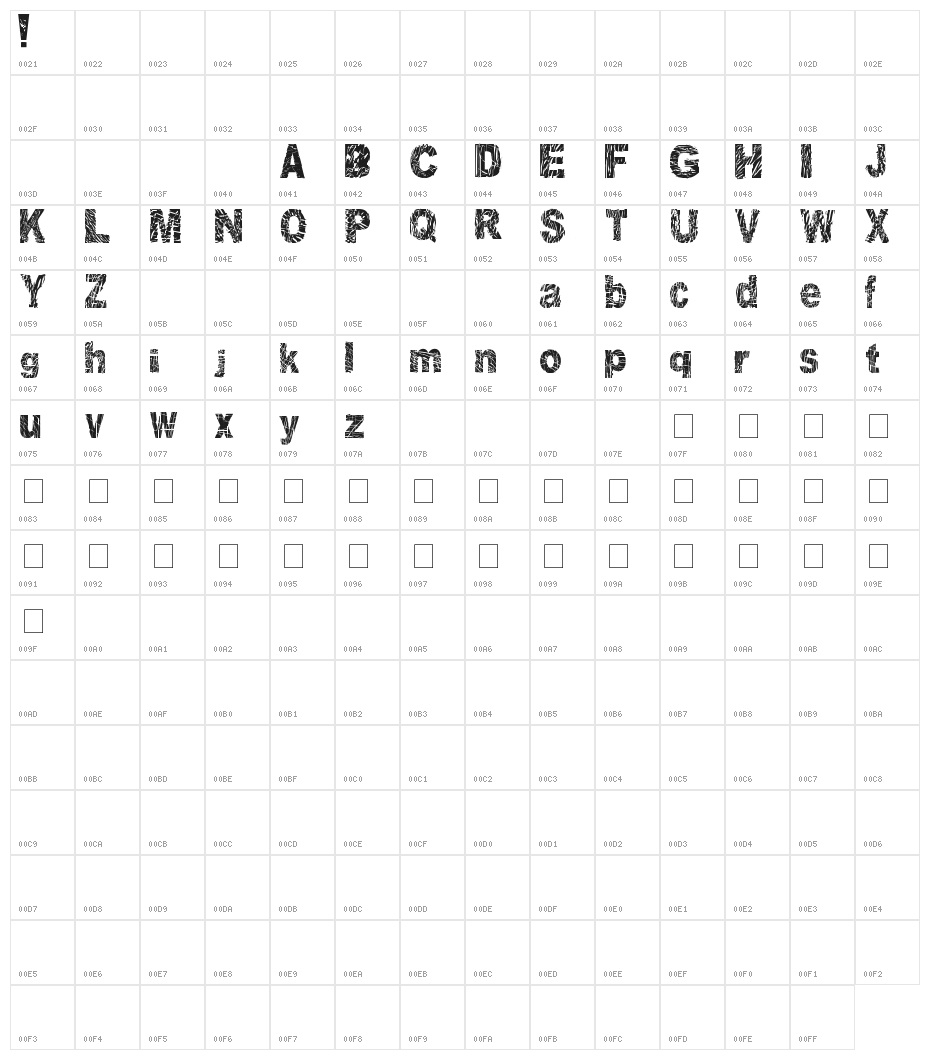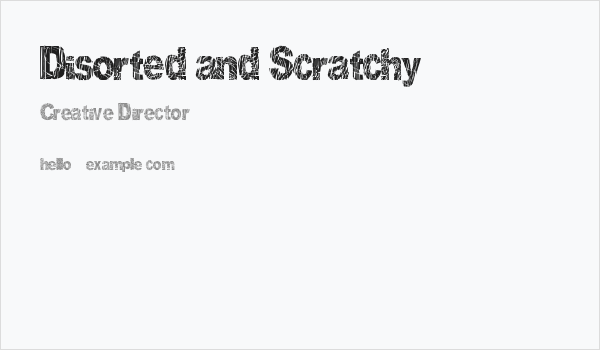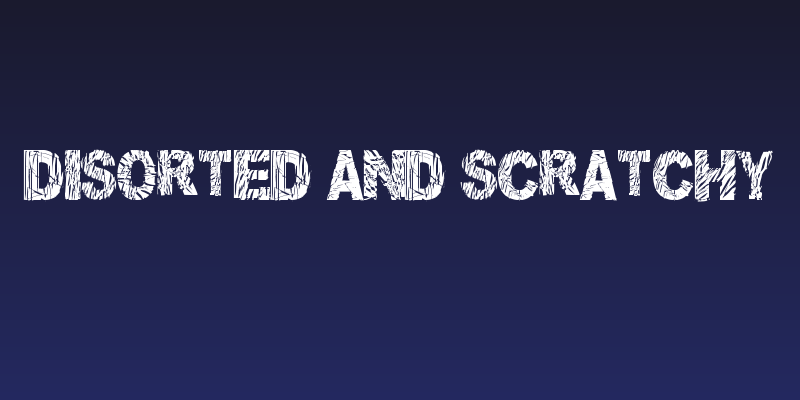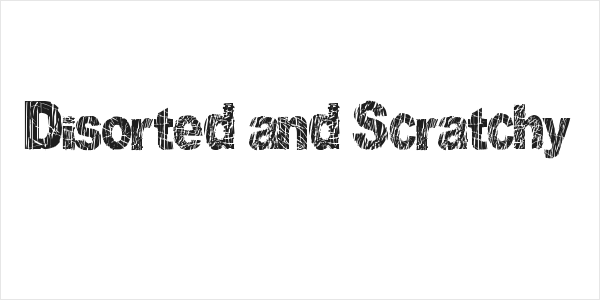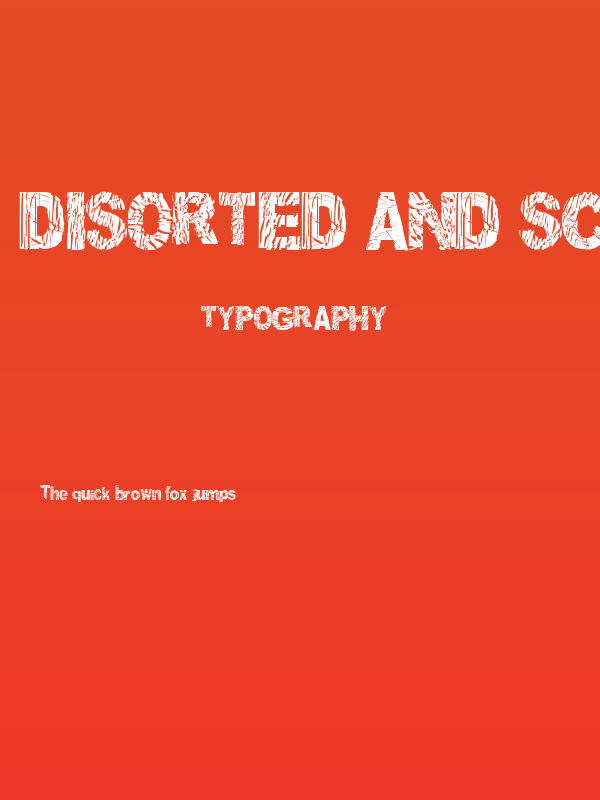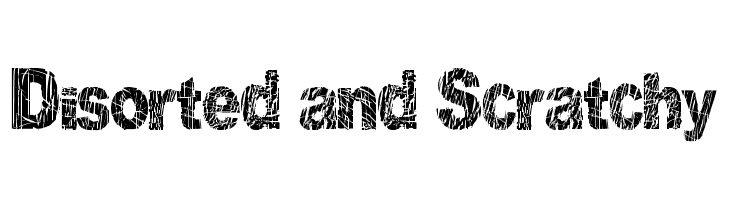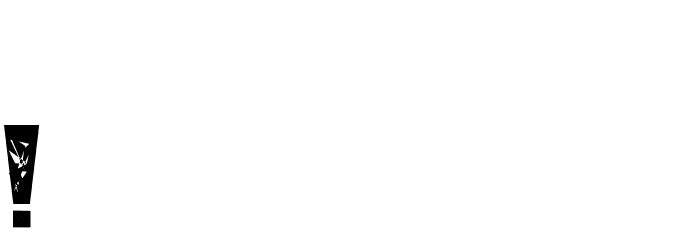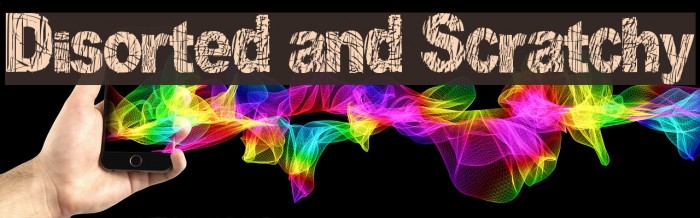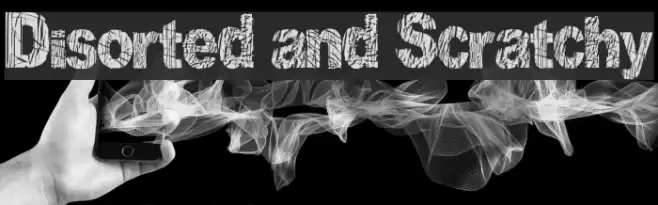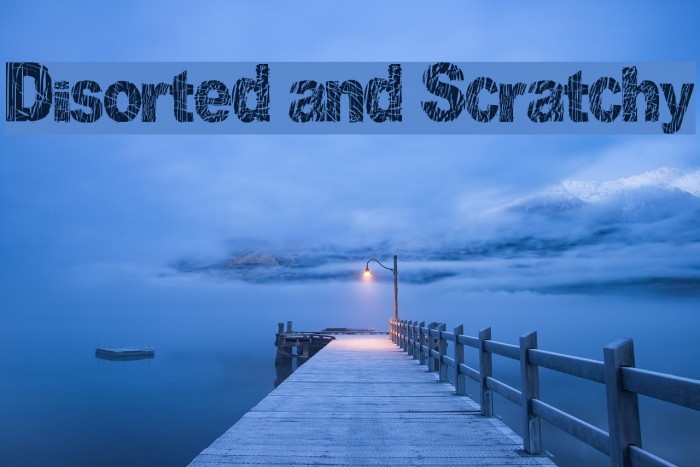
Disorted and Scratchy Font
Disorted and Scratchy Description
This font features a highly distressed and scratchy appearance, giving it a chaotic and edgy look. The characters are bold and heavily textured, resembling a rough, hand-drawn style with irregular lines and a sense of movement. The uppercase and lowercase letters maintain a consistent level of distortion, creating a cohesive yet unpredictable visual impact. The font's unique style makes it stand out, ideal for projects that require a raw, grunge aesthetic. Its boldness ensures legibility despite the intricate detailing and irregularities in the design.
| Overall Style | Grunge, Edgy |
| Proposed Projects | Ideal for album covers, posters, and edgy branding projects. |